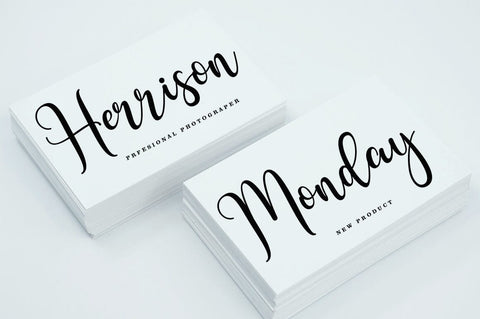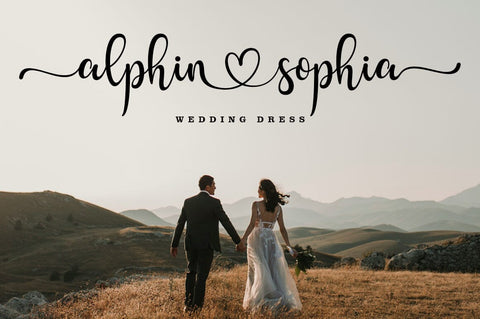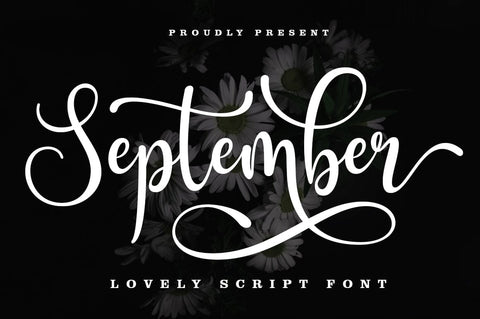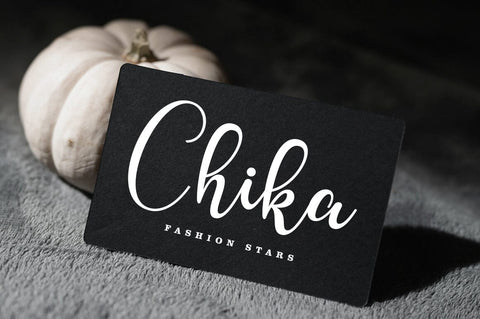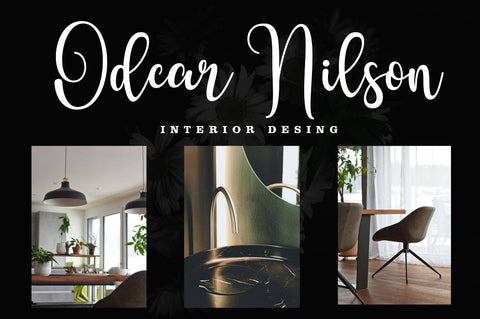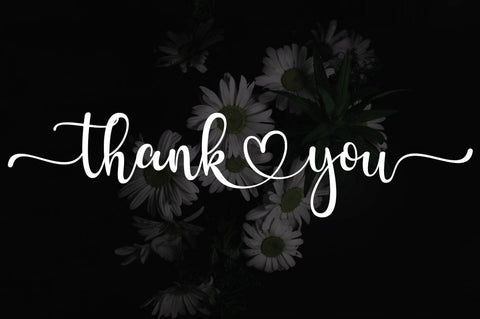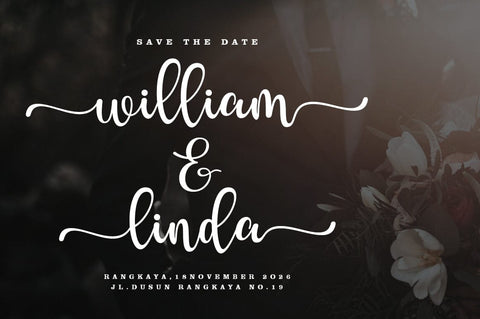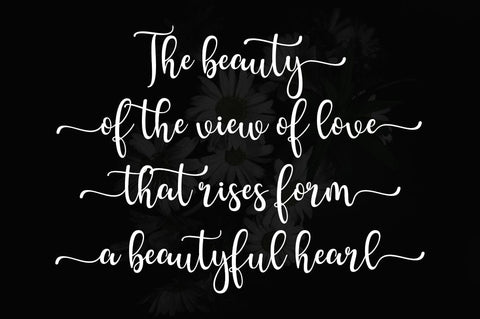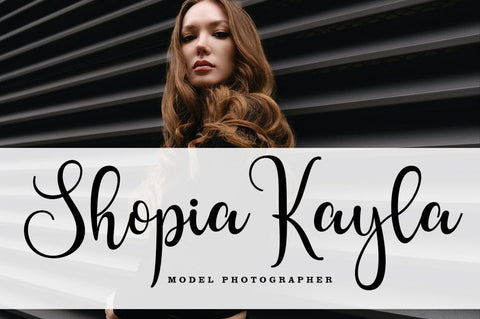
September Script
September Script is a new modern script font with an irregular baseline. Trendy and feminine style. September Script looks beautiful in wedding invitations, thank you cards, quotes, greeting cards, logos, business cards, and more. Perfect for use in ink or watercolor. Includes initial and final letters, alternates, and support for multiple languages.